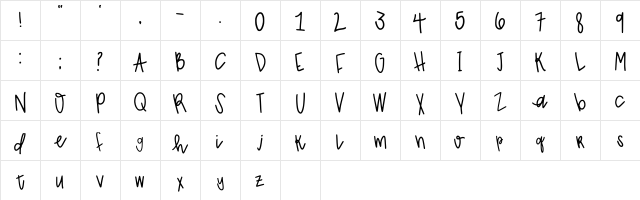
Complete Buzz Buzz Regular glyph index. Displaying only characters natively supported by Buzz Buzz Regular font.
Buzz Buzz is a composed and adaptable typeface that performs quietly and consistently across a wide range of design contexts.